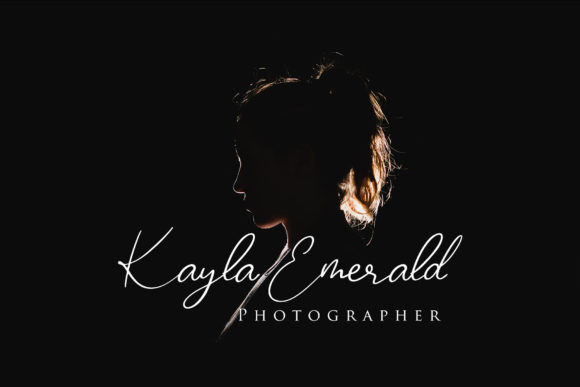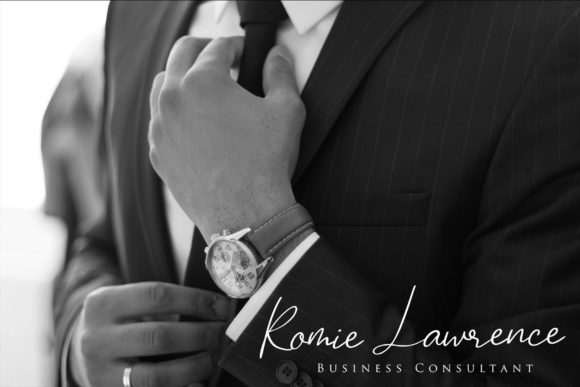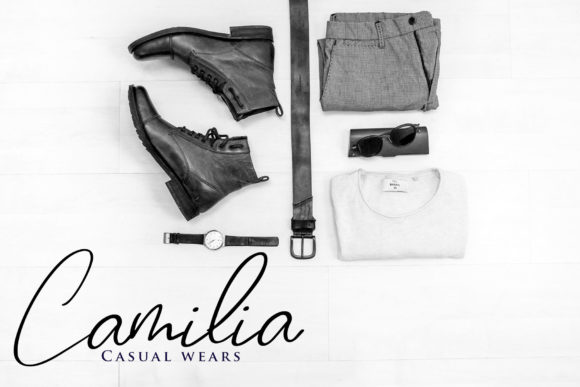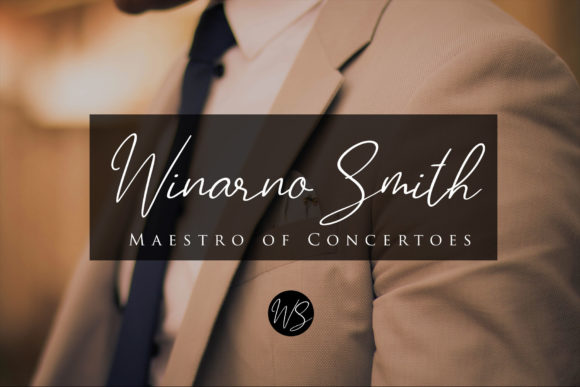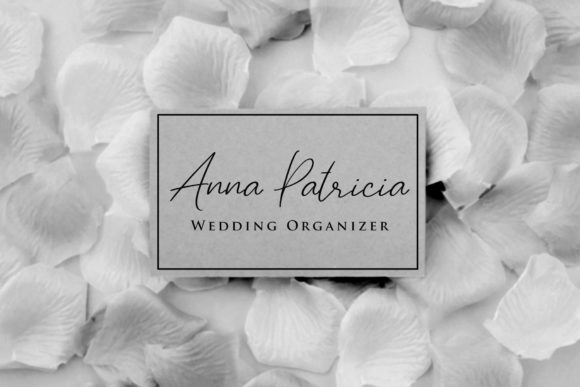
Katalia Font
Katalia is an elegant, classy and versatile handwritten font with a timeless feel. Use it to add a sophisticated twist to any design project!